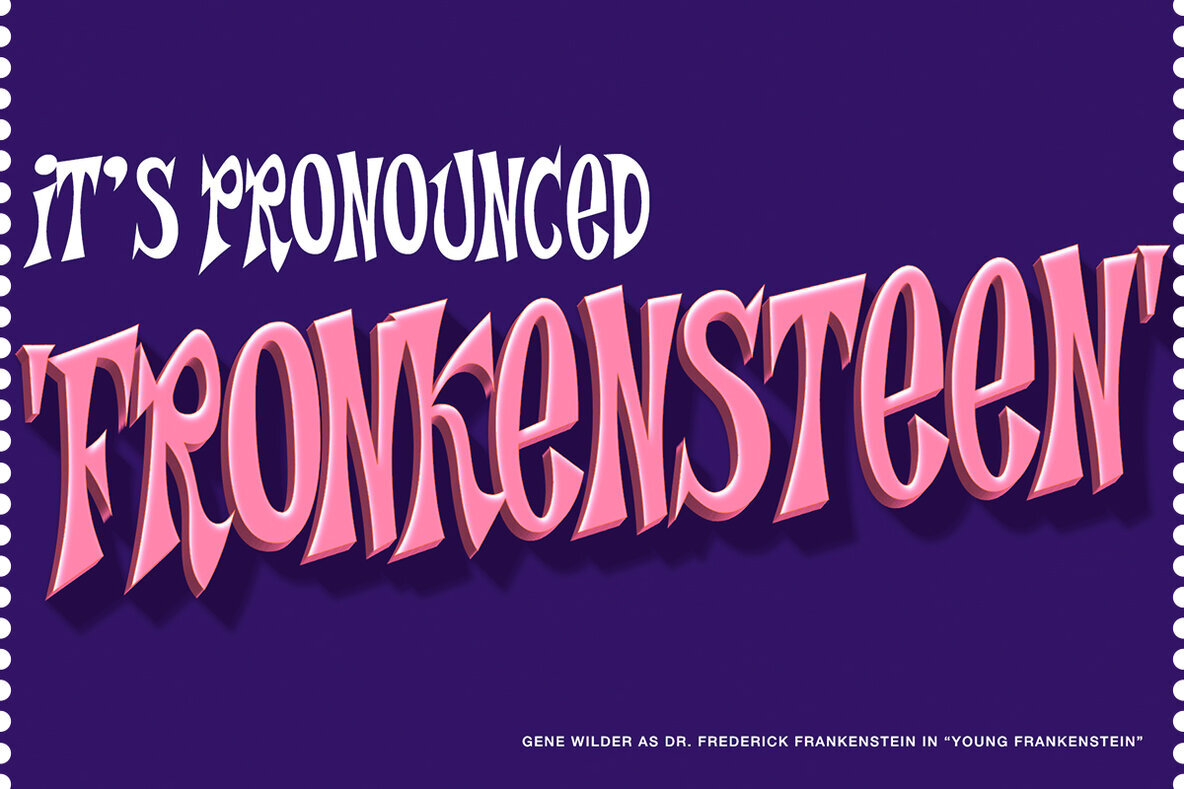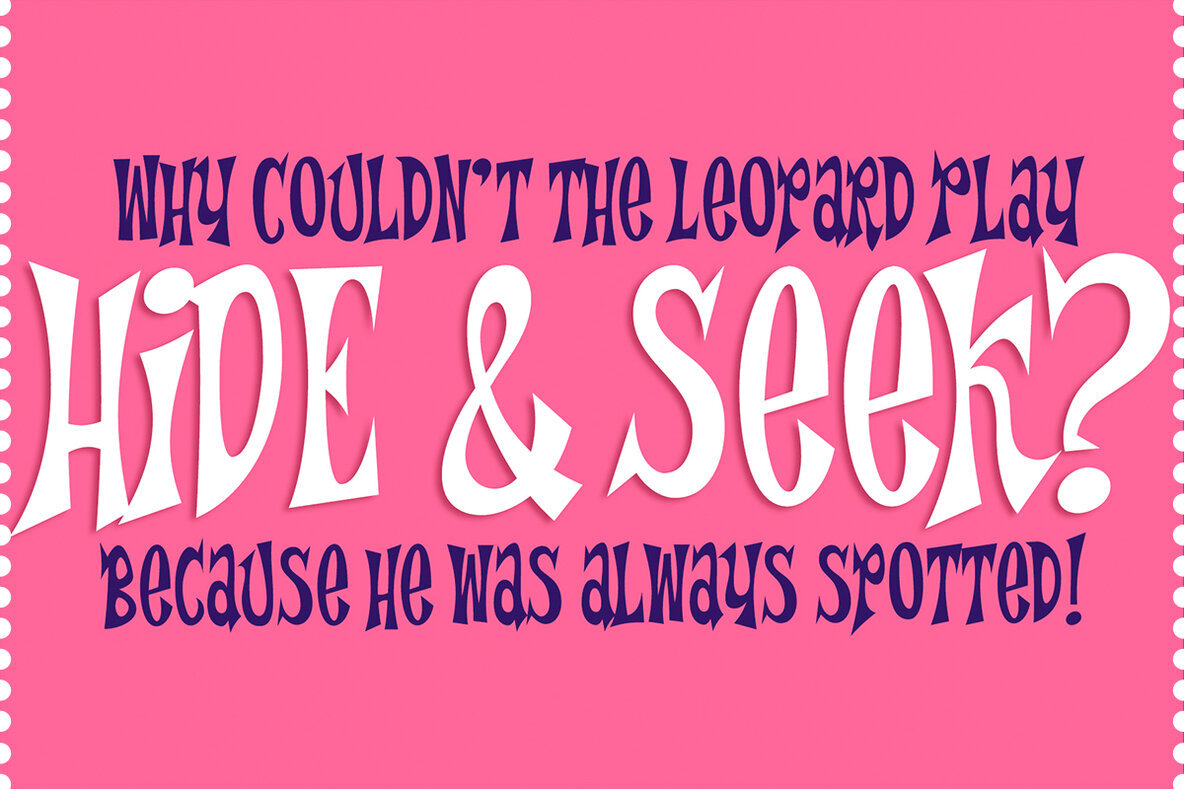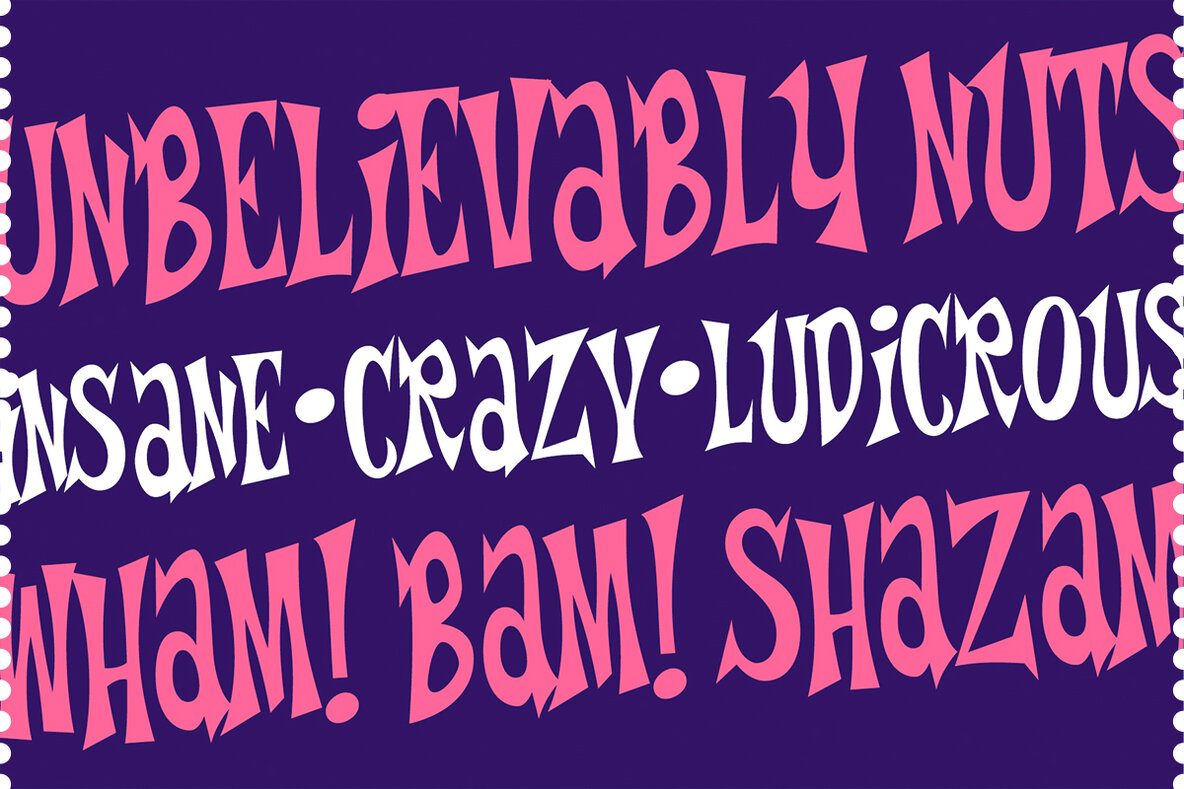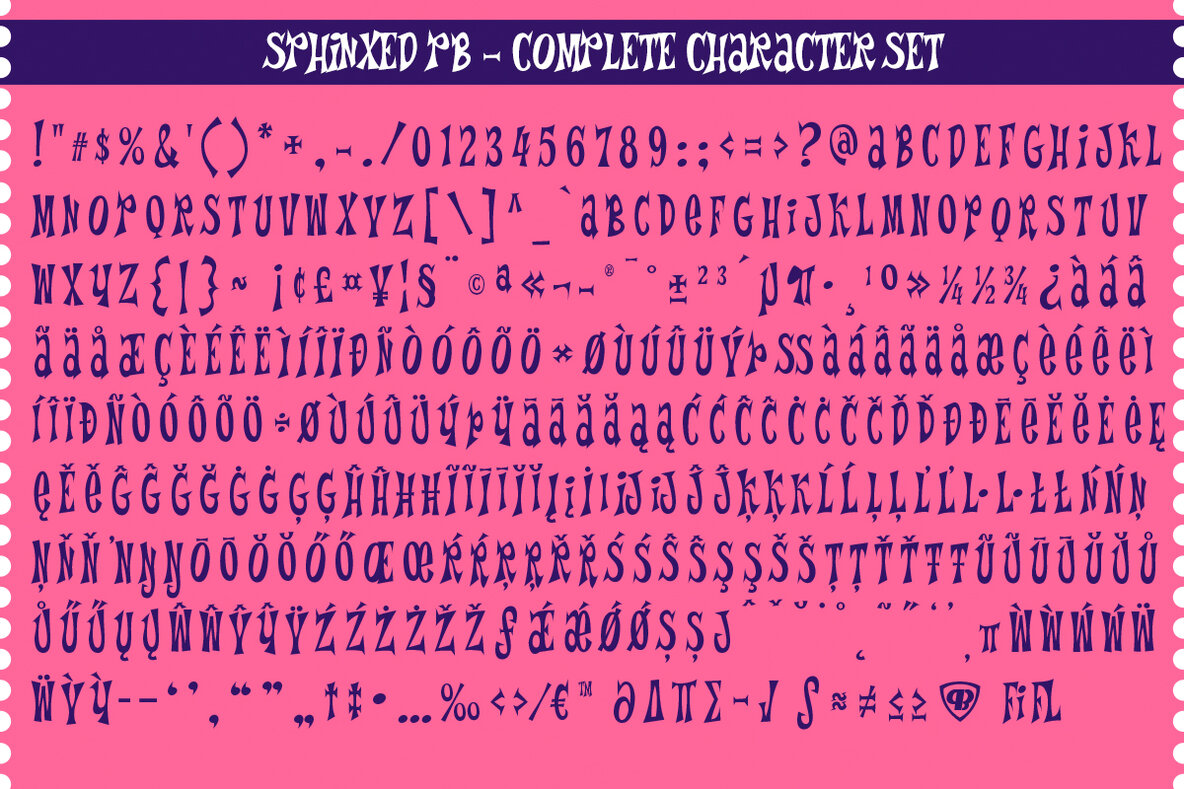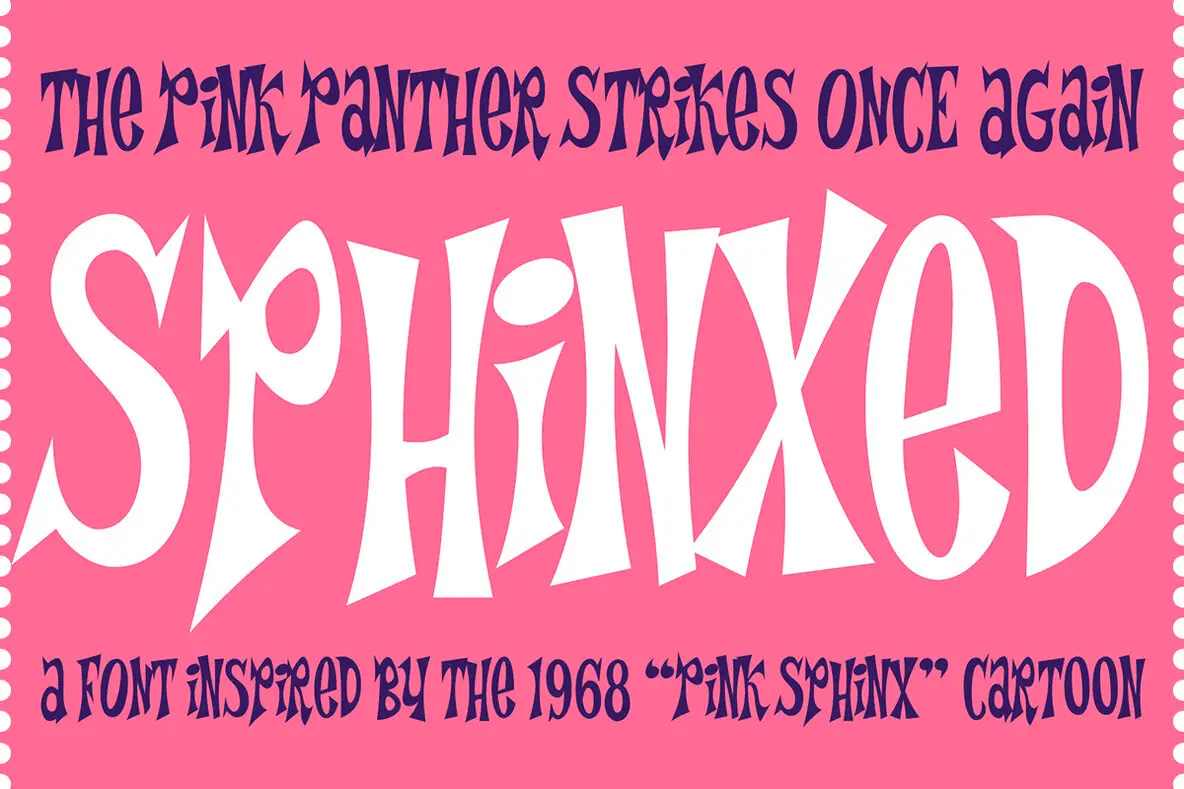
Sphinxed PB Font
Sphinxed PB
Sphinxed PB captures the whimsical essence of the 1968 Pink Panther cartoon "Pink Sphinx," reviving its eclectic mix of wedge and flare serifs. This digital recreation retains the quirky, unbalanced lettering style, offering a playful nod to the past.Sphinxed PB: Retro Charm of 1960s Design
Unique Characteristics
Bring a touch of retro funk to your projects with Sphinxed PB, a dynamic choice for graphic professionals seeking both originality and a touch of nostalgia.